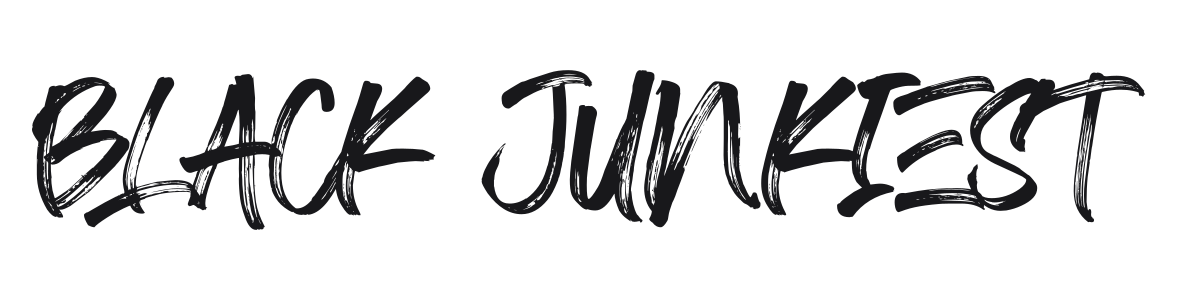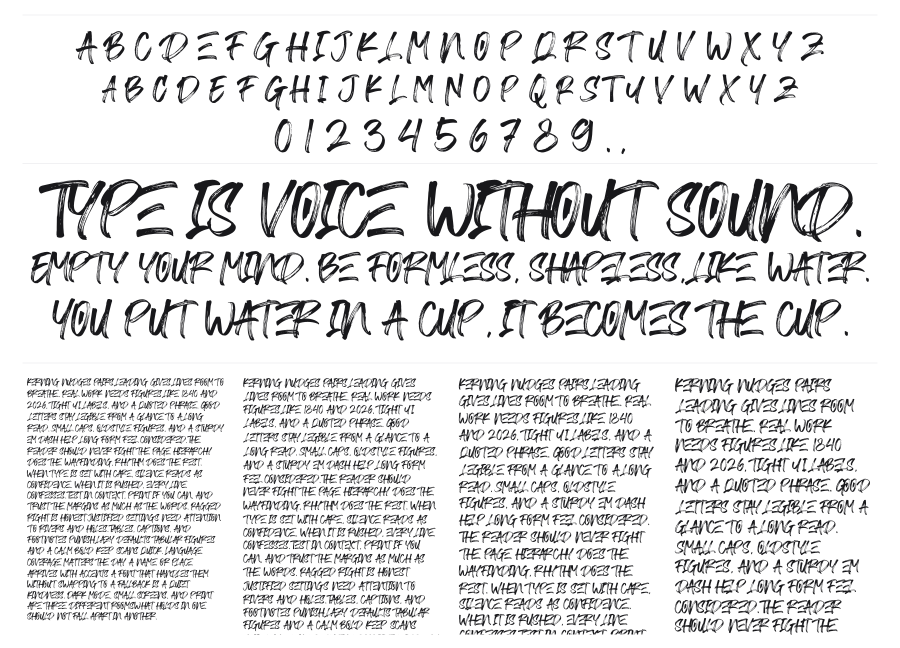
Black Junkiest
Black Junkiest is a bold brush script with heavy, rough strokes and a raw street-art attitude. Ragged ink textures and sharp stroke contrast between thick stems and thin hairlines give it a spontaneous, hand-painted quality. It reads loudly at headline sizes and suits anything that needs an urban, rebellious edge.